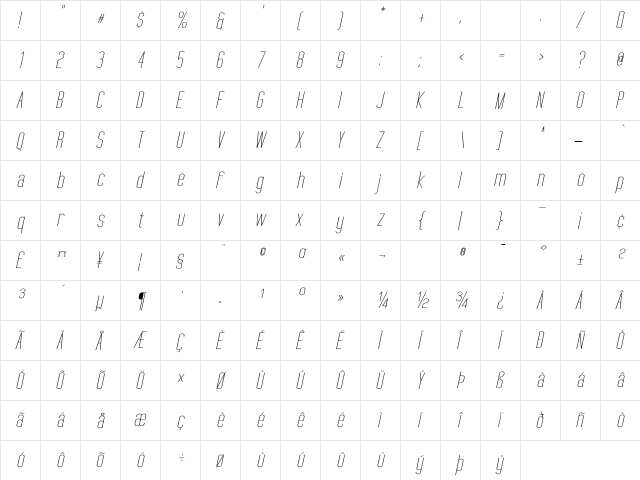
Tall Films Expanded Oblique Regular
Design Context for Tall Films Expanded Oblique Typeface
Tall Films Expanded Oblique offers clean, dependable letterforms without strong stylistic allegiance, making it a practical choice for designers who need flexibility. Its italic angle brings a sense of urgency and motion to the letterforms.
Pro Tip: Try Tall Films Expanded Oblique for annotation and caption copy alongside an upright companion — the contrast in angle creates a dynamic but ordered typographic system.